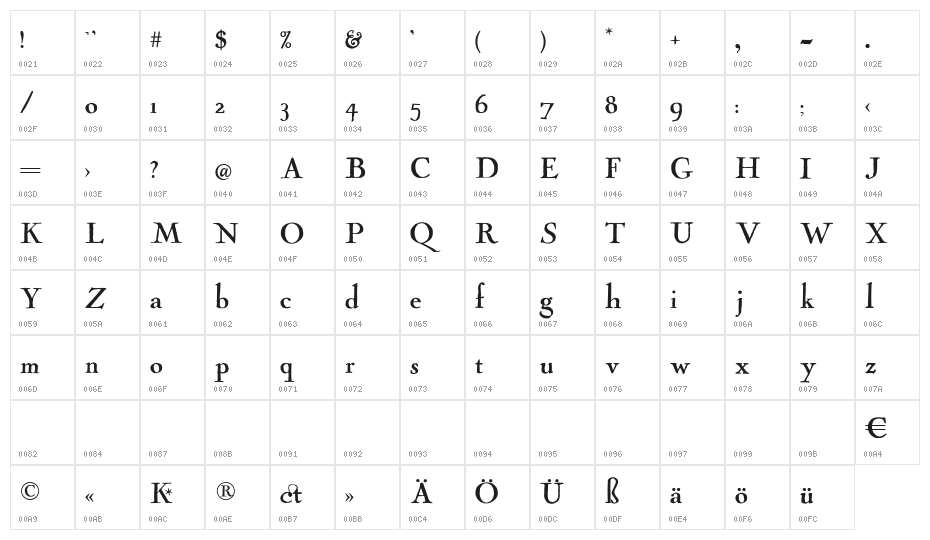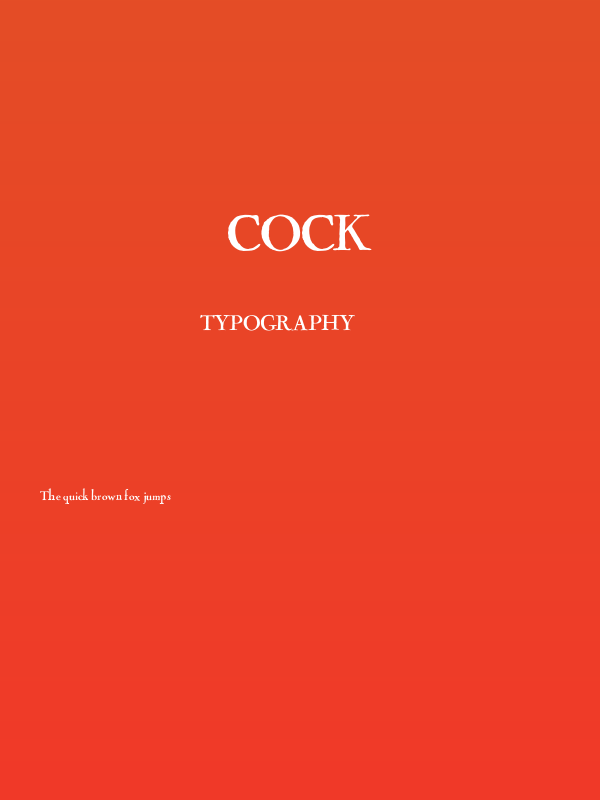
Cock Font
Cock Description
This font exhibits a classic and elegant style with a touch of vintage charm. The uppercase letters are bold and pronounced, featuring sharp serifs that add a sense of authority and tradition. The lowercase letters maintain a consistent style, with slightly rounded edges that soften the overall appearance. The numerals are clear and distinct, making them easily readable. Special characters are designed with the same attention to detail, ensuring they blend seamlessly with the rest of the typeface. The overall design is balanced, making it suitable for a variety of applications where a touch of sophistication is desired.
| Overall Style | Classic |
| Use Case | Headlines, Body text, Logos |
| Proposed Projects | Ideal for book covers, formal invitations, branding projects, and editorial design. |